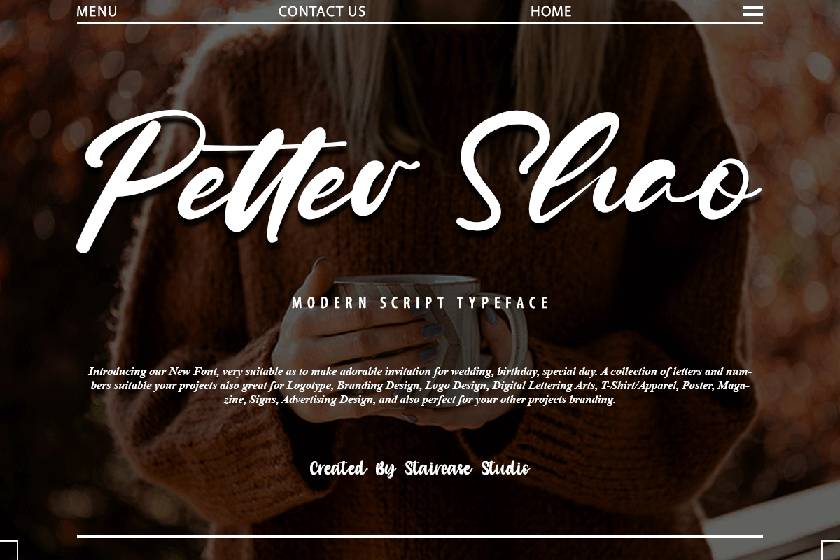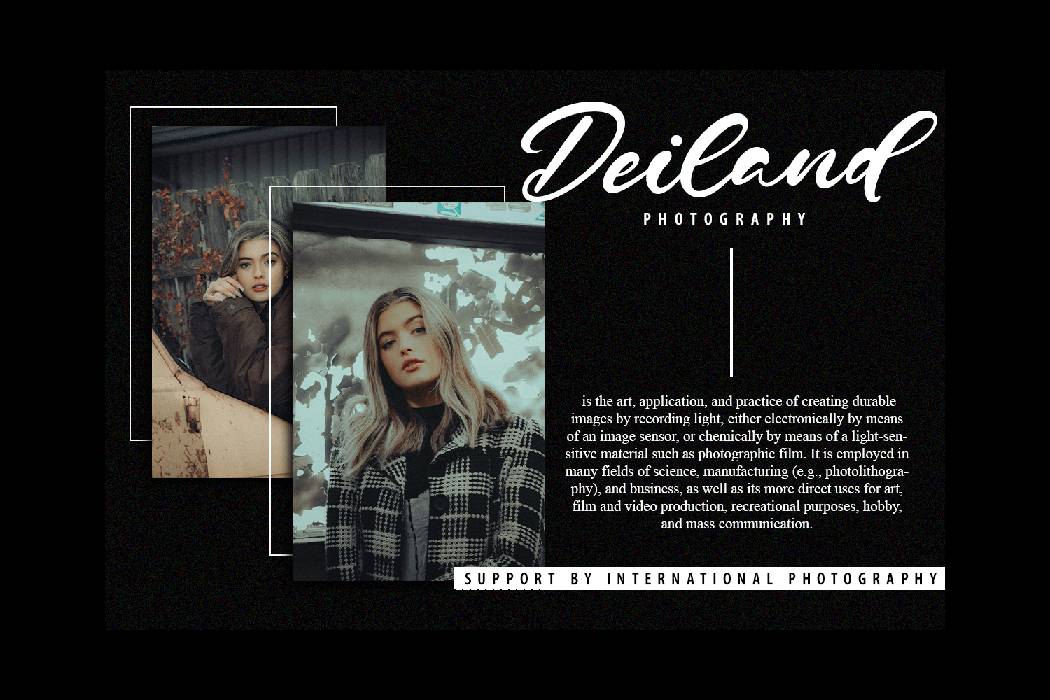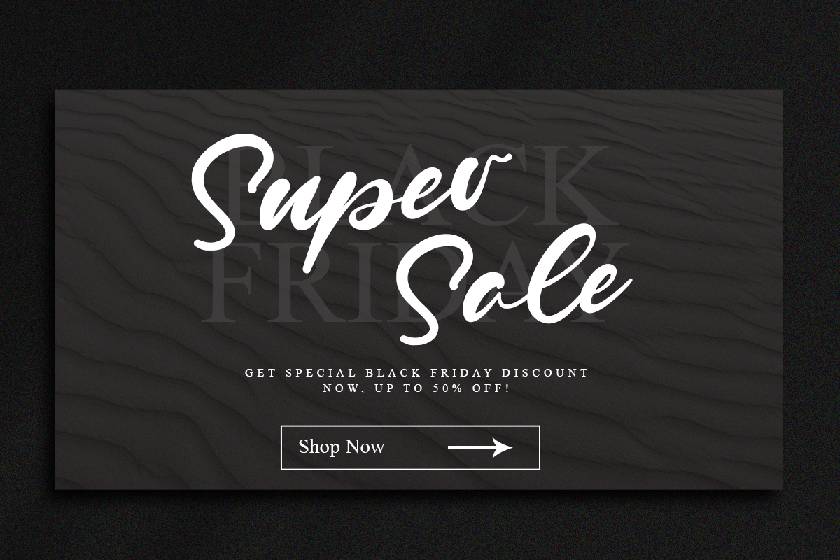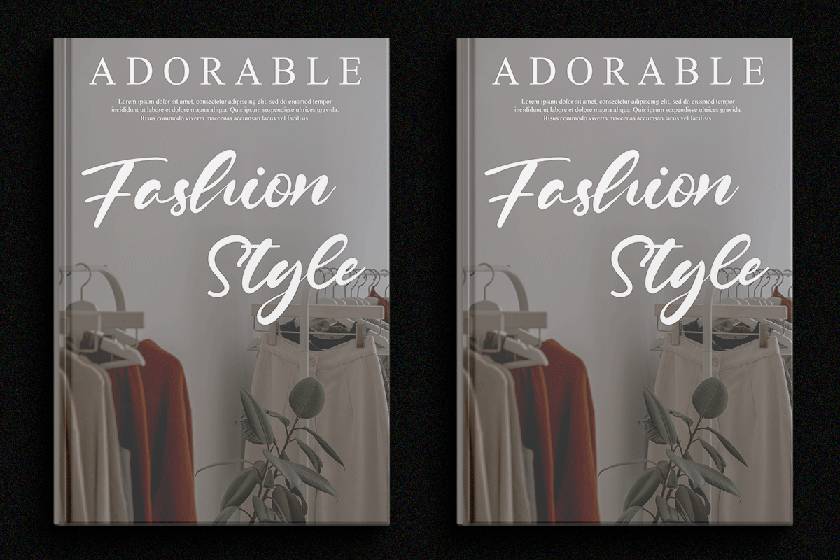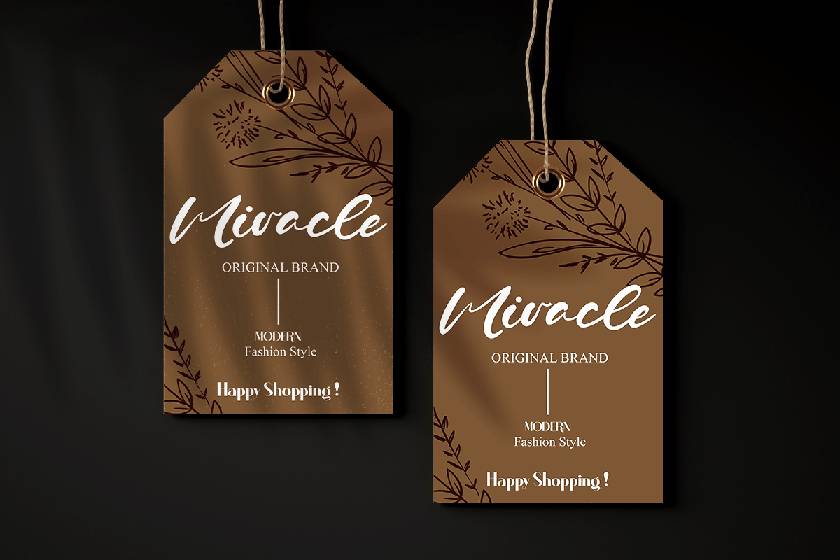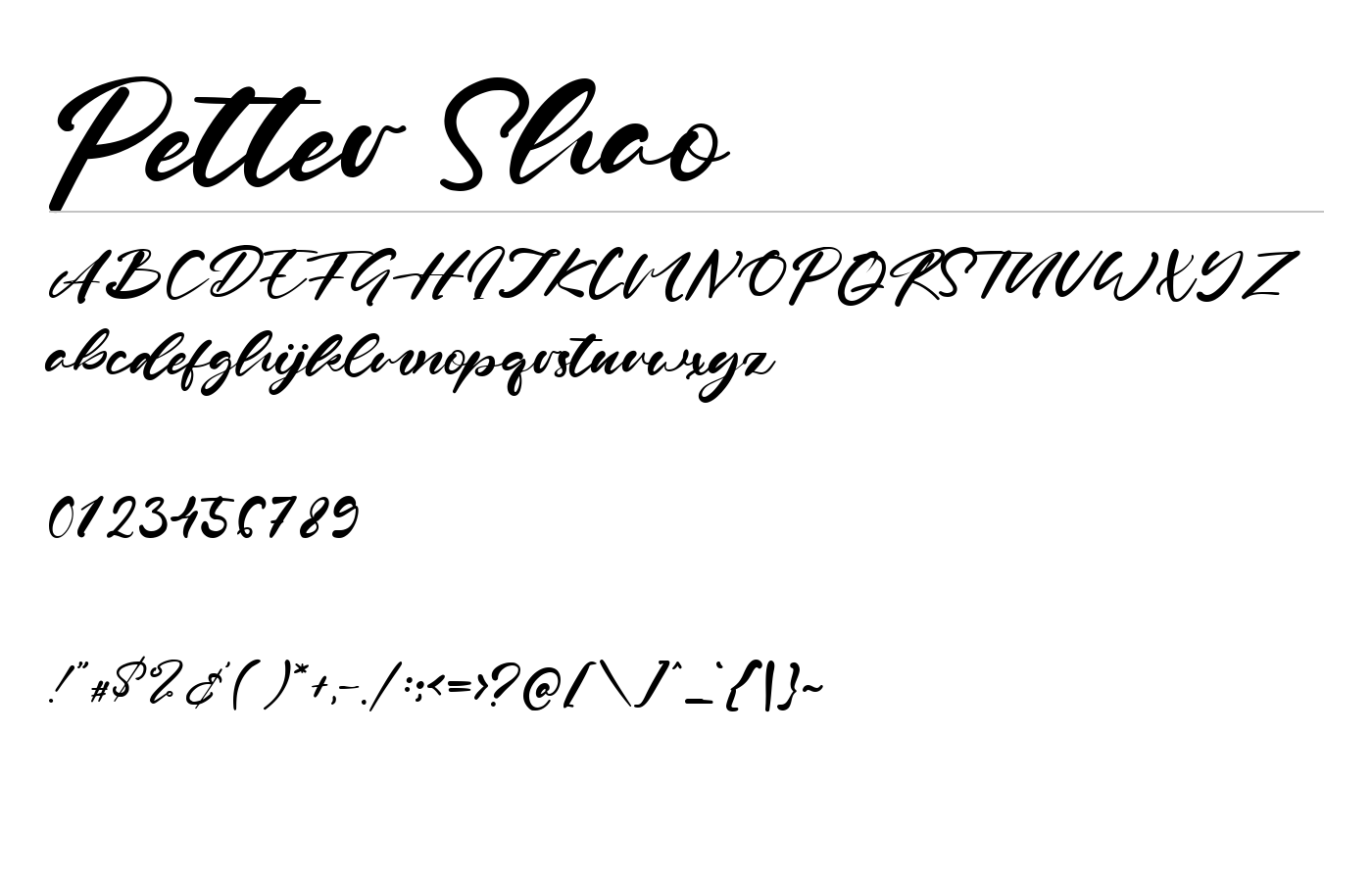
Petter Shao is a stylish script font with a flowing, handwritten feel that combines moderate weight with elegant, smooth strokes. Its graceful letterforms and connected characters make it ideal for use in branding, invitations, and creative projects where a personal, artistic touch is desired. This font works beautifully for logos, headlines, and packaging that aim to convey sophistication and warmth.
Petter Shao Font
About Petter Shao Font
| Font family | Petter Shao Font |
| Designer | Staircase Studio |